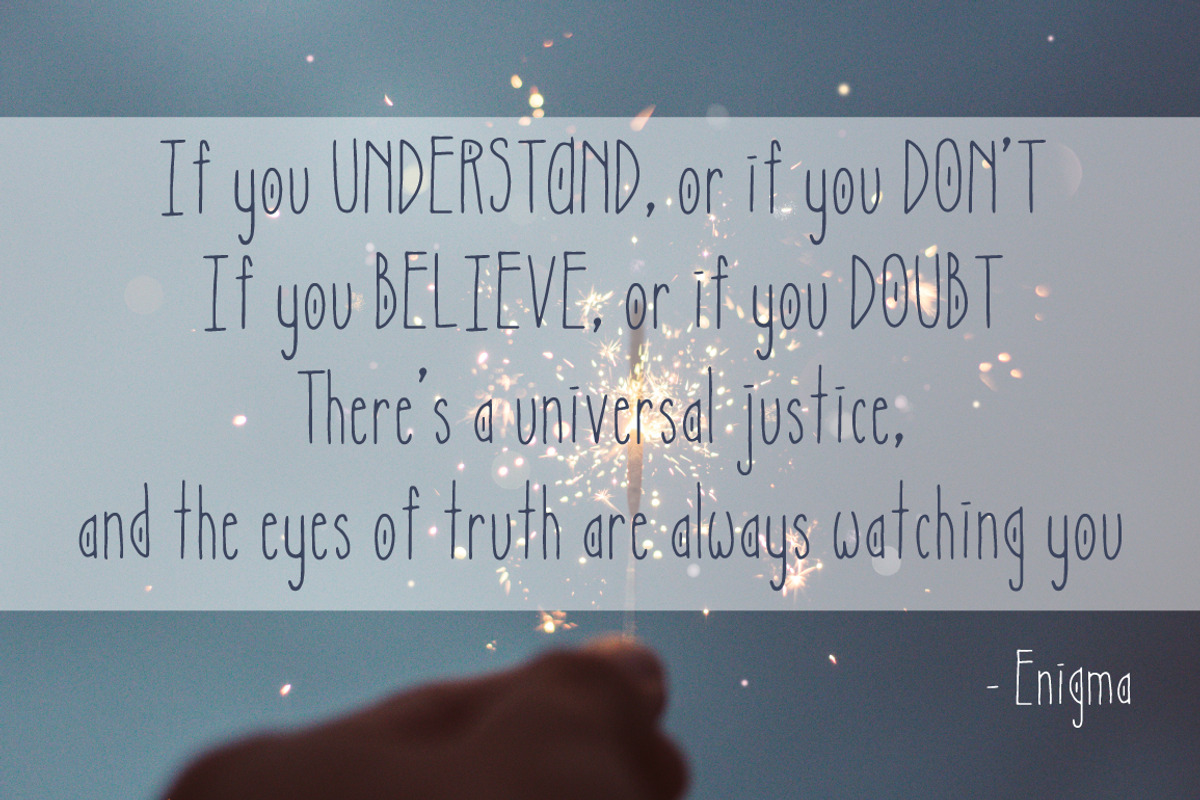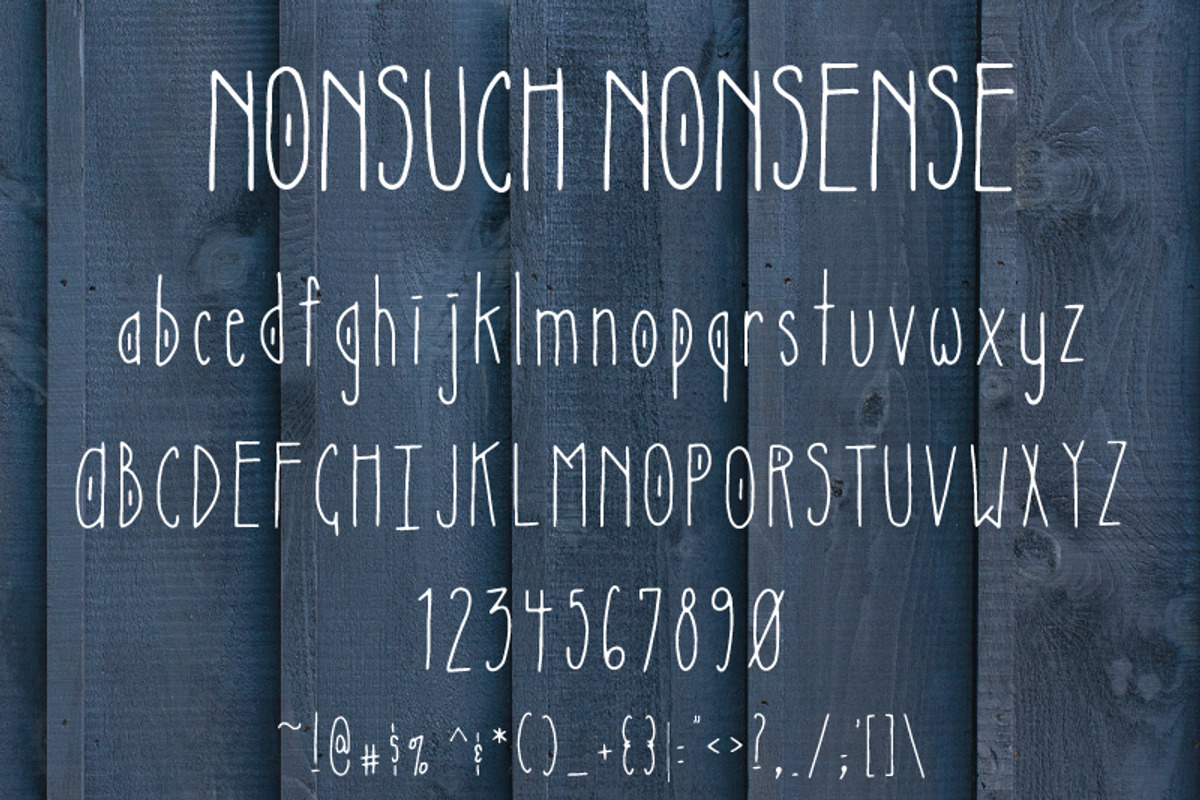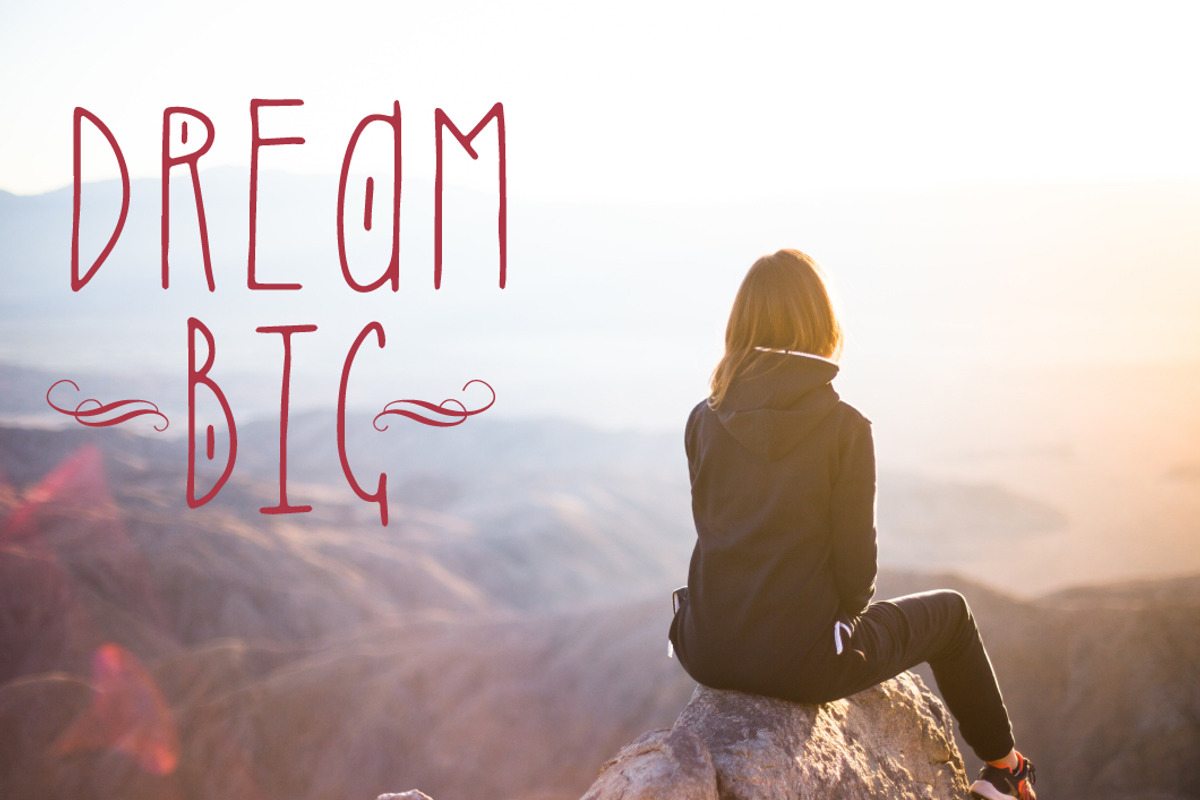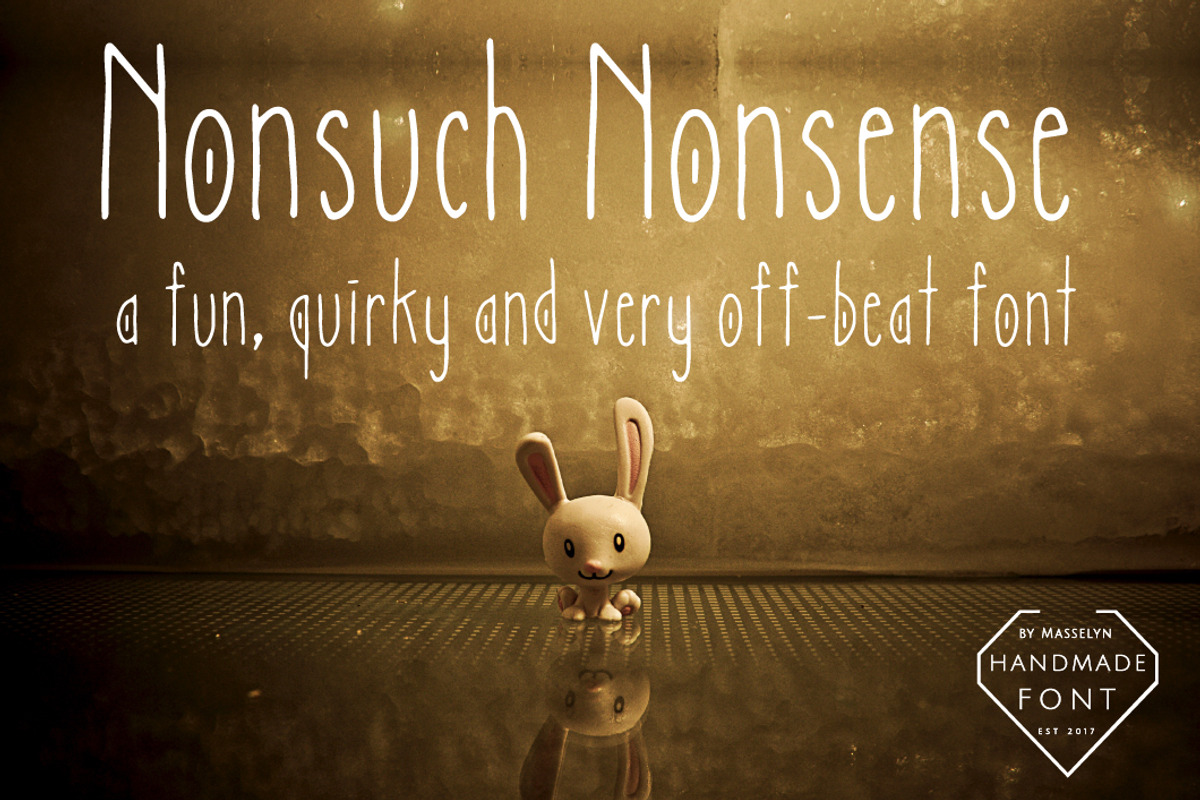
Nonsuch Nonsense // Quirky Font
A fun & quirky font from my new collection. There are lots of cool letters, some with accents in the middle to add a little "flair" to the design. This font looks really good in all CAPS.
The following letters & characters are included:
- All uppercase letters
- All lowercase letters
- All numbers and basic punctuation